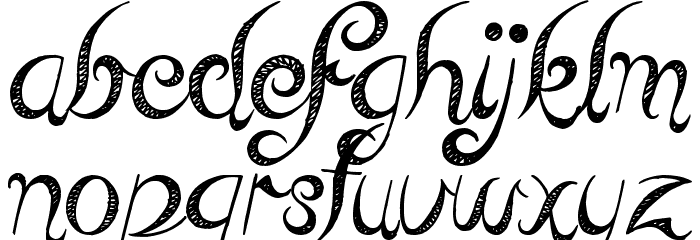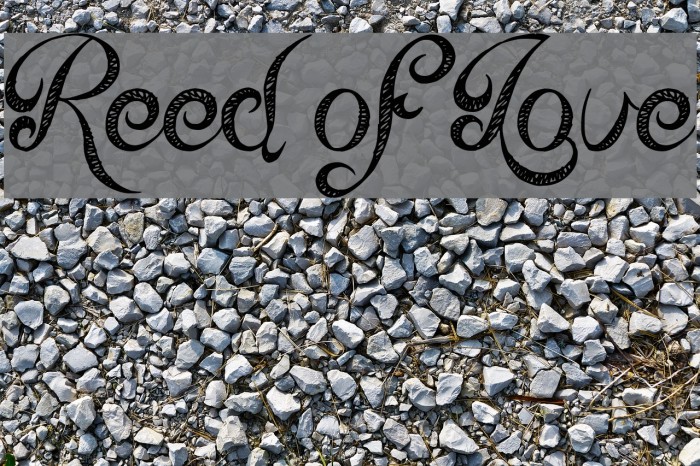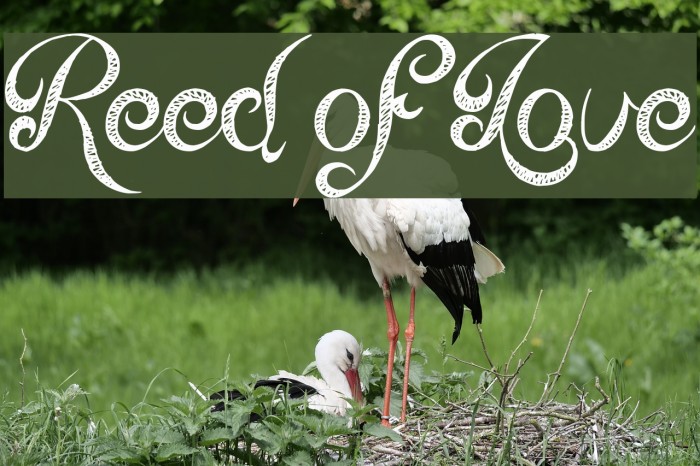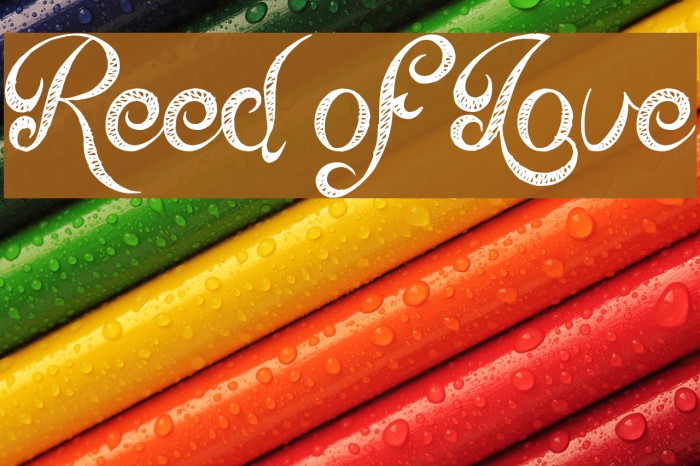
Reed of Love Font
This font showcases an intricate and decorative style, characterized by its swirling, ornate letterforms. Each character is embellished with detailed patterns, giving it a unique and artistic flair. The uppercase letters are bold and dramatic, while the lowercase letters maintain a consistent flow with elegant curves. The numbers and special characters follow the same ornate design, ensuring a cohesive look across all elements. This font is perfect for projects that require a touch of sophistication and creativity, making it ideal for artistic and decorative purposes.
An ornate and decorative font with intricate swirling patterns.
- Proposed Projects: Ideal for wedding invitations, artistic posters, branding for luxury products, and decorative signage.
- Use Case: Logos, Headlines, Artistic projects